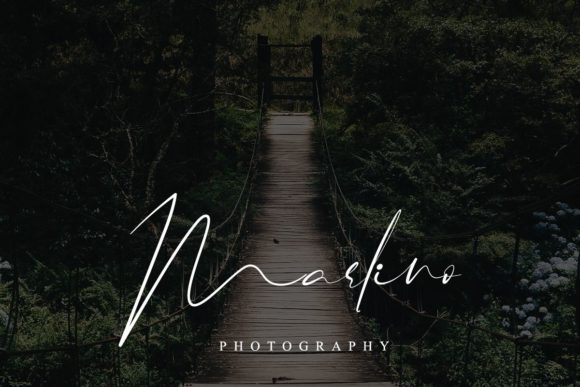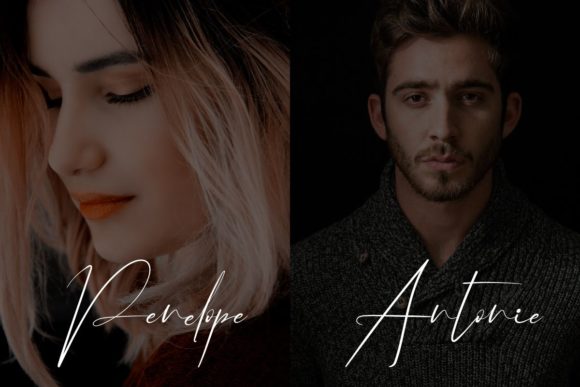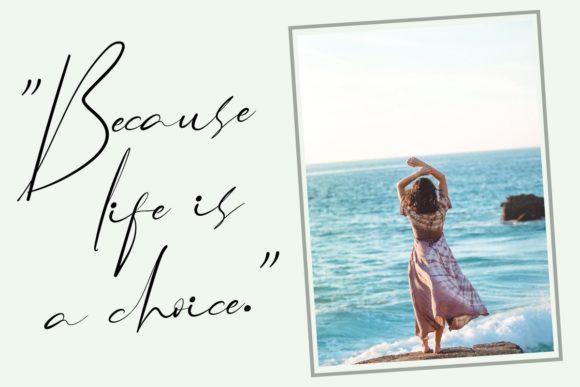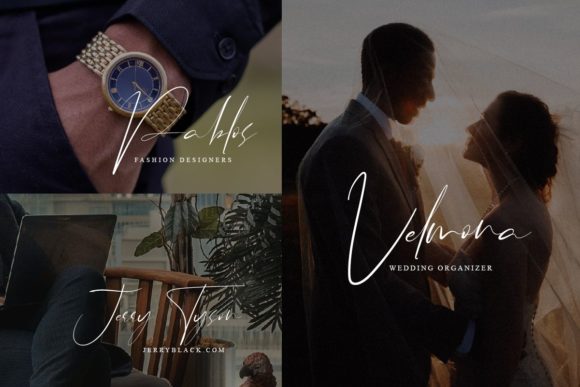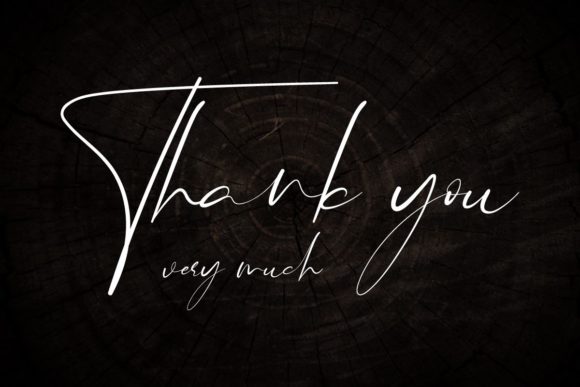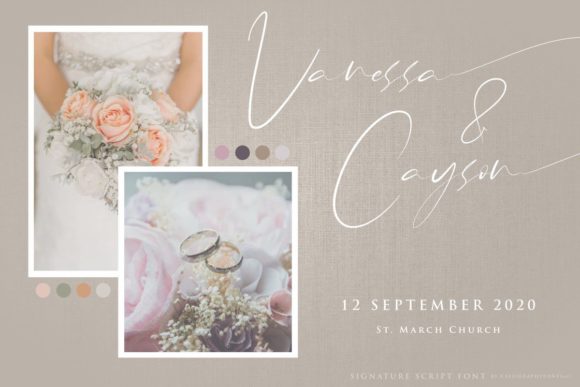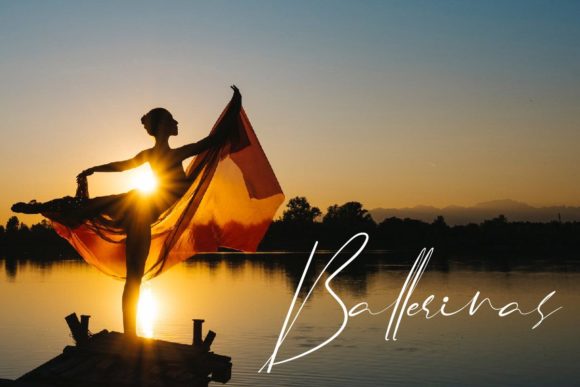
Ballerinas Font: Elevate Your Designs with Elegance and Sophistication
Are you a designer or crafter looking for a font that exudes elegance and sophistication? Look no further than Ballerinas Font, a beautiful handwritten font that is sure to take your projects to the next level. With its flowing lines, gorgeous glyphs, and stunning alternates, Ballerinas Font is the perfect choice for anyone looking to add a touch of class and refinement to their designs.
What Makes Ballerinas Font So Special?
Ballerinas Font is a truly unique and special font that offers a range of features that set it apart from other fonts. Here are just a few of the things that make Ballerinas Font so special:
- Elegant and Flowing Design: Ballerinas Font features a beautiful, flowing design that is perfect for creating elegant and sophisticated text. The font’s smooth lines and varying baseline give it a dynamic and expressive feel that is sure to capture the attention of your audience.
- Gorgeous Glyphs and Alternates: Ballerinas Font features a range of gorgeous glyphs and alternates that allow you to add variety and interest to your text. From beautiful swashes to elegant ligatures, Ballerinas Font has everything you need to create stunning text.
- Classy Calligraphic Influences: Ballerinas Font maintains a classy calligraphic influence that gives it a timeless and sophisticated feel. At the same time, the font also feels contemporary and fresh, making it perfect for modern designs.
Why Choose Ballerinas Font?
So why choose Ballerinas Font for your next design project? Here are just a few reasons why Ballerinas Font is the perfect choice:
- Perfect for Elegant Designs: Ballerinas Font is perfect for creating elegant and sophisticated designs. Whether you’re working on a wedding invitation, a luxury brand identity, or a high-end product label, Ballerinas Font is sure to help you create a design that exudes class and refinement.
- Versatile: Ballerinas Font is a versatile font that can be used for a wide range of design projects. Whether you’re working on a digital project or a print project, Ballerinas Font is sure to help you create a design that looks great and communicates your message effectively.
How to Use Ballerinas Font in Your Designs
Using Ballerinas Font in your designs is easy. Here are just a few tips to get you started:
- Pair it with Other Fonts: Ballerinas Font pairs well with a range of other fonts, from simple sans serif fonts to elegant script fonts. Experiment with different font combinations to find the perfect look for your design.
- Use it for Headings and Titles: Ballerinas Font is perfect for use in headings and titles, where its elegant and flowing design can really shine. Use it to add a touch of class and sophistication to your design.
- Experiment with Swashes and Glyphs: Ballerinas Font features a range of beautiful swashes and glyphs that can add variety and interest to your text. Experiment with different swashes and glyphs to find the perfect look for your design.
In conclusion, Ballerinas Font is a beautiful and elegant handwritten font that is perfect for designers and crafters looking to add a touch of class and sophistication to their designs. With its flowing lines, gorgeous glyphs, and stunning alternates, Ballerinas Font is sure to help you create designs that exude elegance and refinement. So why wait? Download Ballerinas Font today and take your designs to the next level!